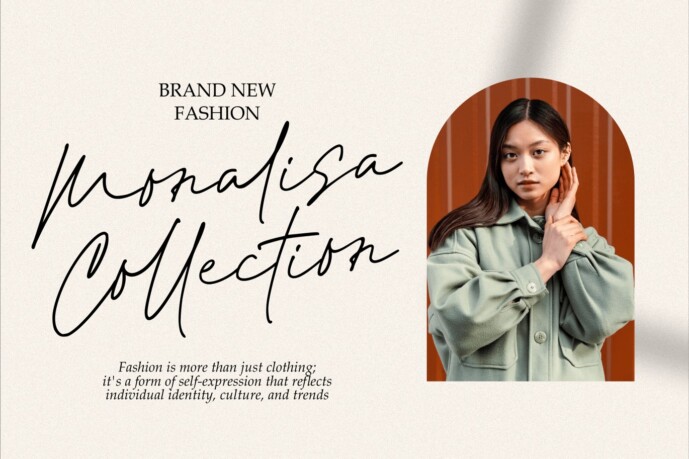
Amber Feather Font
Amber Feather Font is a handwritten typeface that radiates beauty, modern elegance, and chic sophistication. Its soft, graceful strokes make it the perfect choice for weddings, cards, logos, branding, and posters, adding a delicate yet impactful touch to any design. This versatile font features elegant ligatures, multilingual support, and is PUA-encoded, allowing for easy access to special characters. Amber Feather elevates your creative projects with its refined and luxurious charm, making it an ideal choice for designs that demand both elegance and modernity.